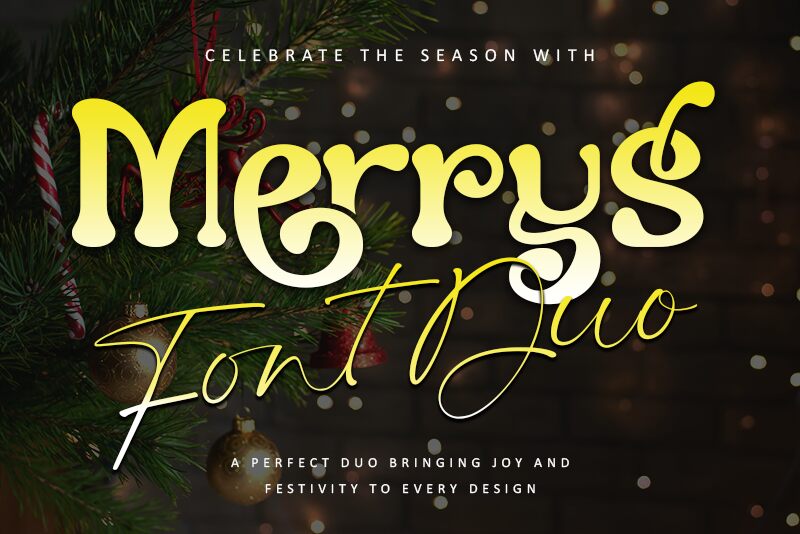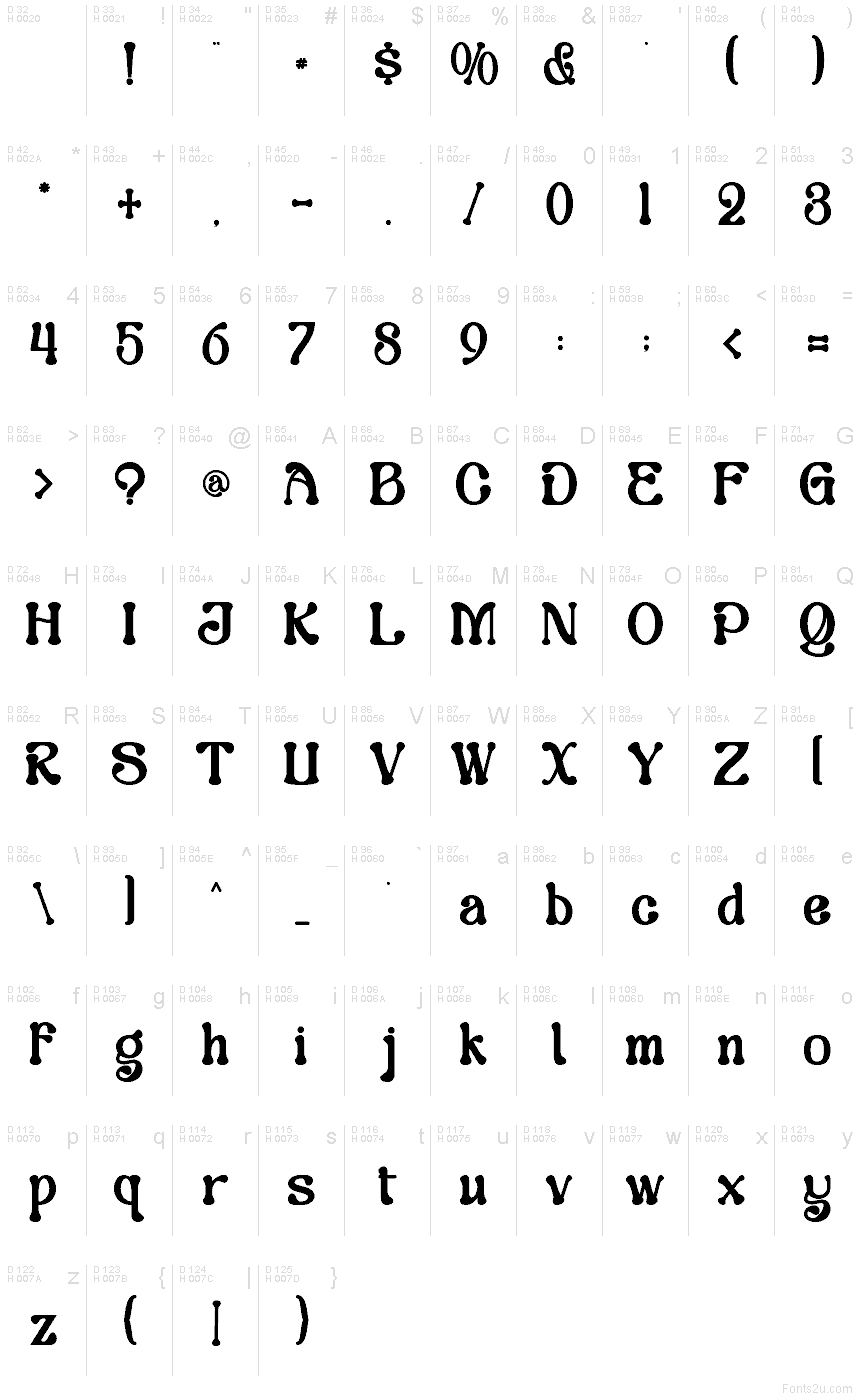
Merrys font by Letterara is a free holiday Christmas typeface that looks like it was piped from thick, glossy icing. Its rounded, chunky strokes and playful curls feel cozy and hand-crafted, with letters that seem to wobble just a bit, like ornaments hanging from a tree. The smooth, inky black forms stay bold and readable, but still carry that whimsical, storybook charm that instantly says “festive.”
Using Merrys, your Christmas cards, gift tags, party invites, advent calendars, social media graphics, and holiday product packaging all gain the same warm, cheerful voice. This free font shines at larger sizes where its soft curves and quirky details can really show, while a simple sans serif for body text keeps everything clear and balanced.